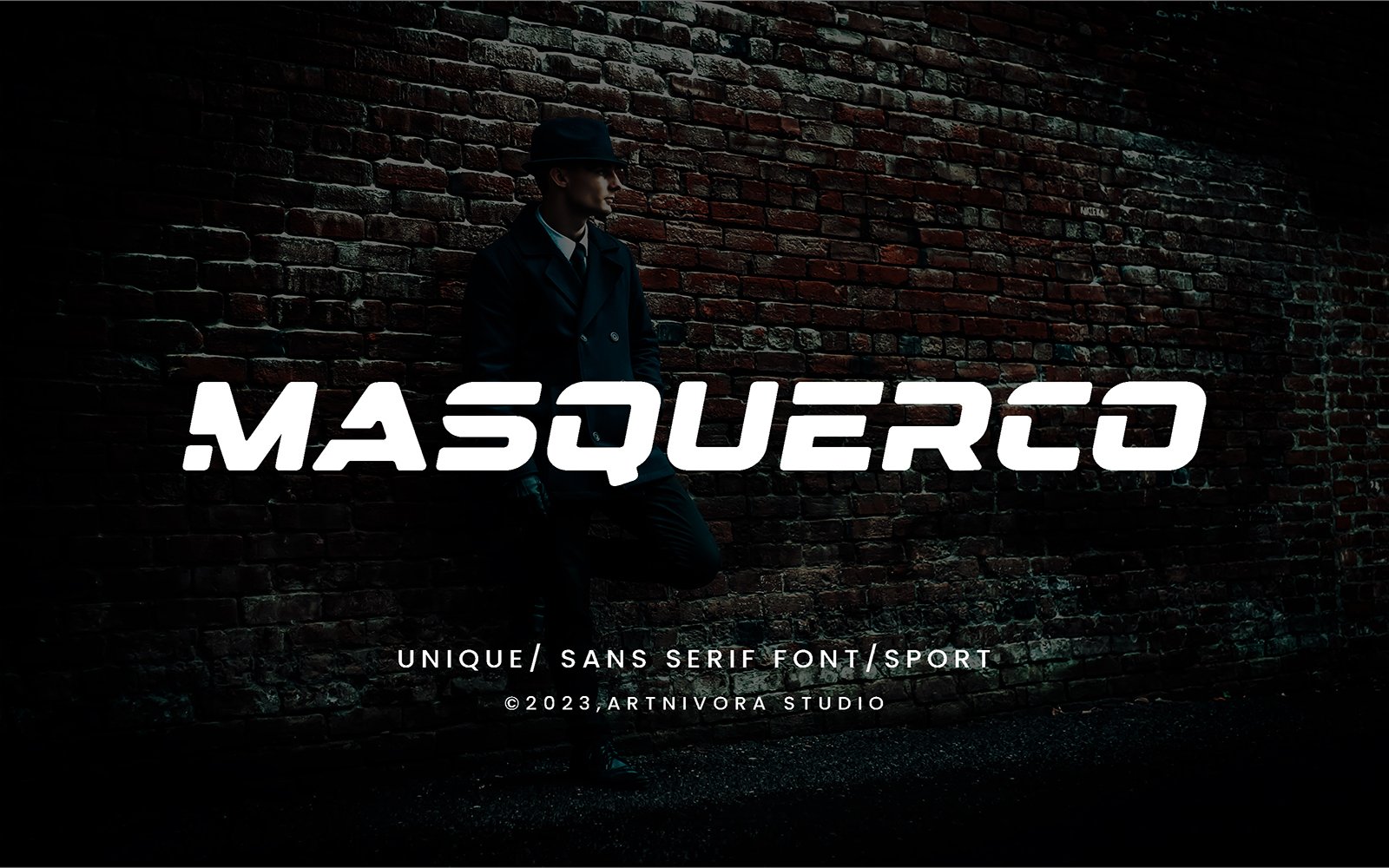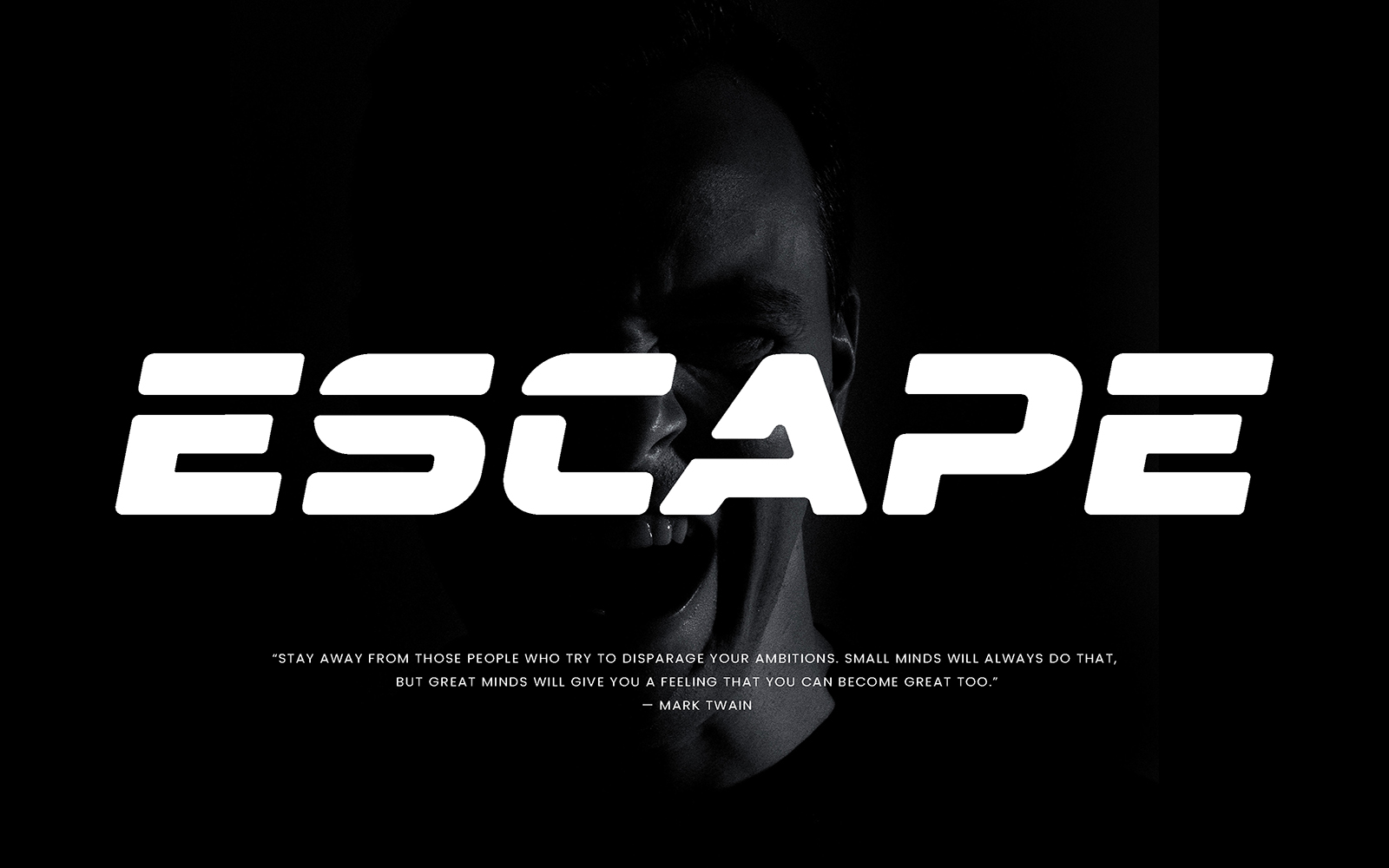
Masquerco - Sans Serif Font
Introducing **Masquerco**, a simple and modern sans serif font.
So perfect for you who needs a typeface for logo designs, magazine, social media, brochure, and many more.